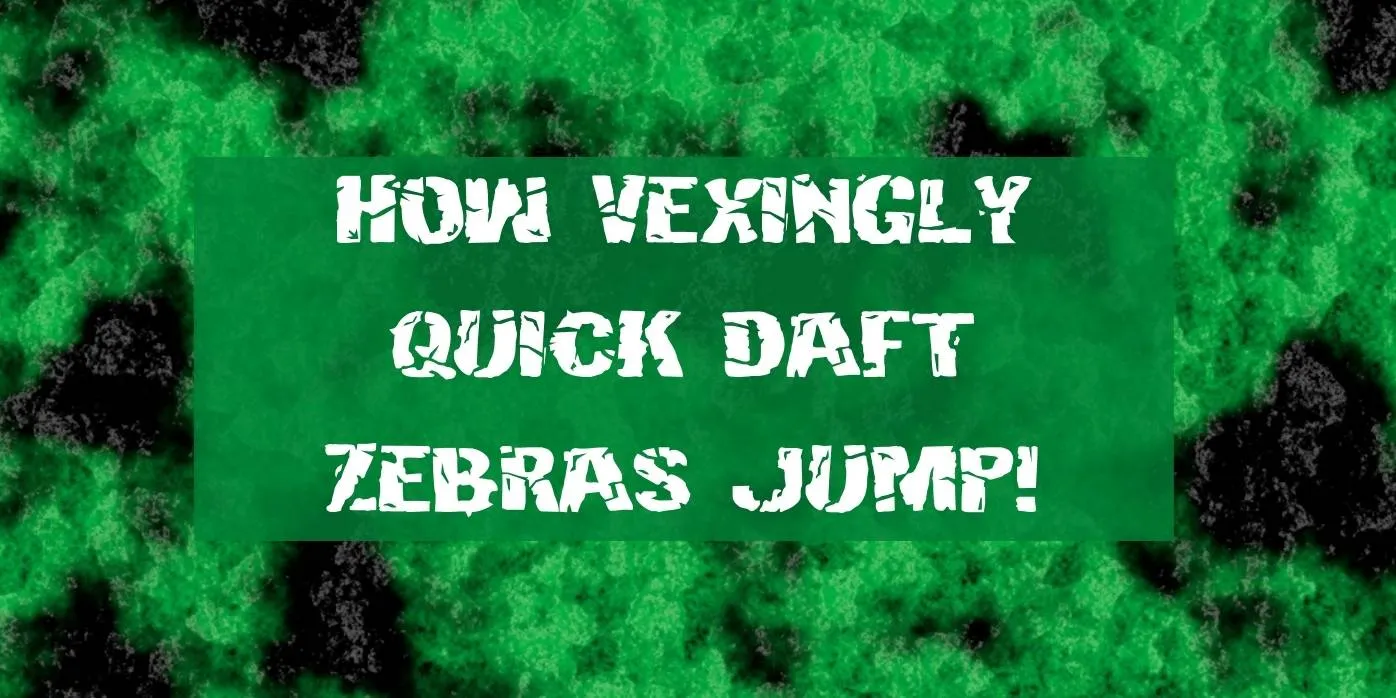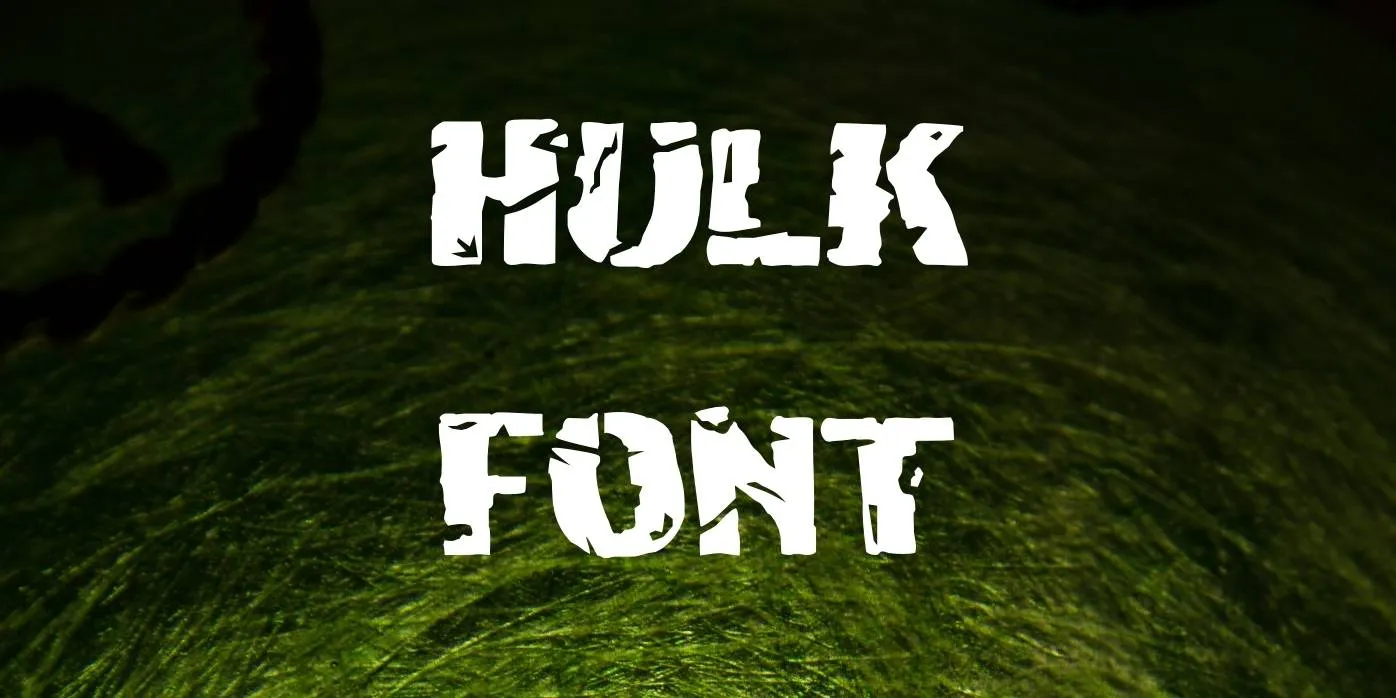
Hulk Font
Hulk Font was developed by Iconian Fonts. This typeface belongs to the Display Typeface. It is designed to be used in magazines, books, and advertising. This typeface is an open-source font project that helps you with different programs.
This typeface has a very strong personality and can be used for headlines, logos, and titling. It comes with a full set of glyphs, including ligatures, alternates, and swashes. This typeface is very close to the Army Font. This stunning font is a beautiful typeface that can be used in a variety of projects.
It has an elegant style that gives your project a professional look. This cozy typeface font is free to download and use for personal projects.